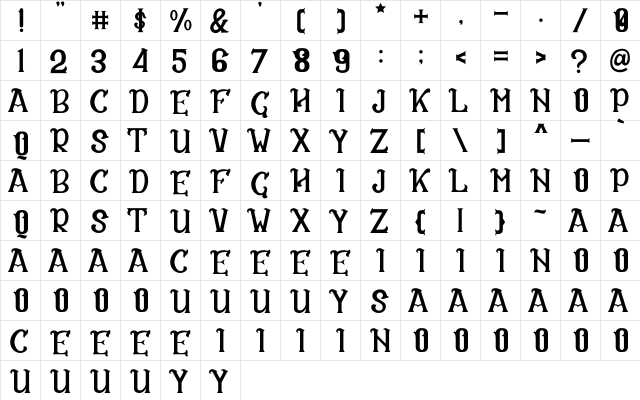
CS Rosalia Regular
Design Context for CS Rosalia Typeface
CS Rosalia offers clean, dependable letterforms without strong stylistic allegiance, making it a practical choice for designers who need flexibility.
Pro Tip: Use CS Rosalia in both headline and body roles to test its range before committing to a single application.